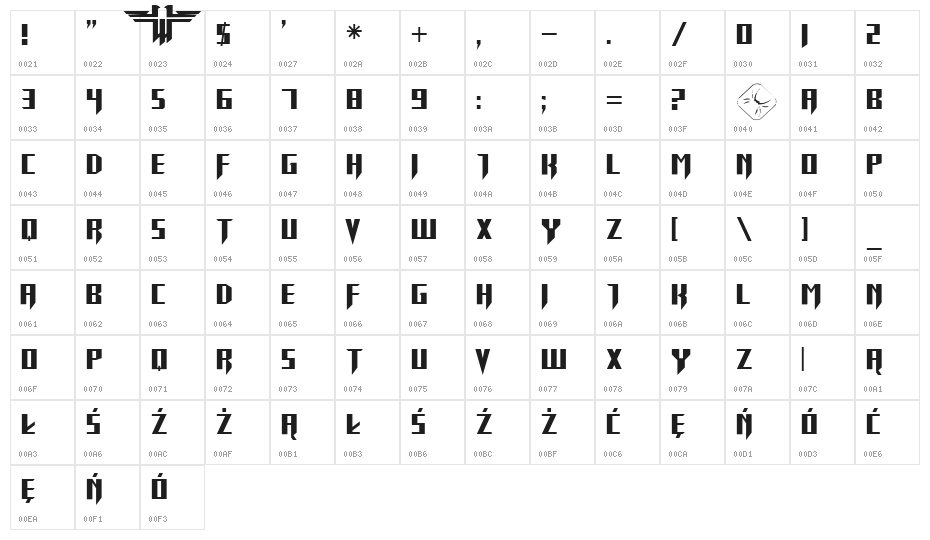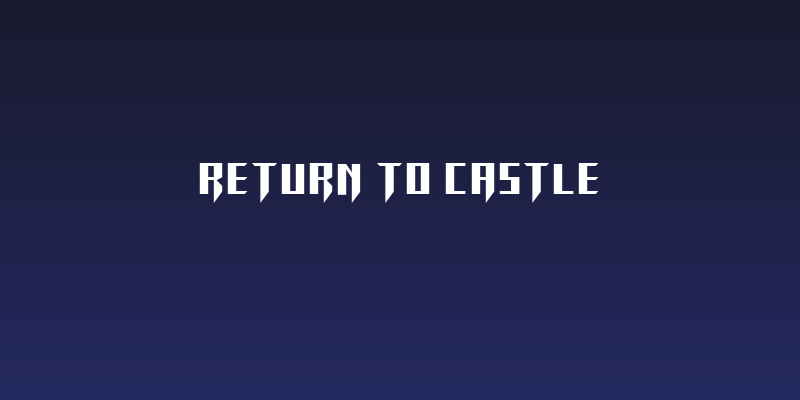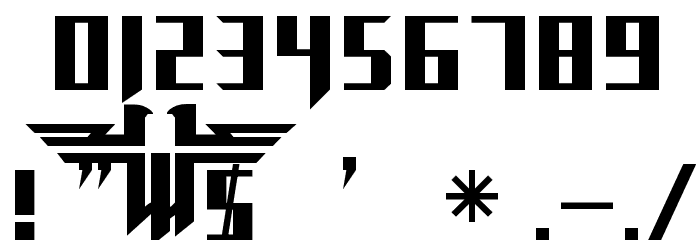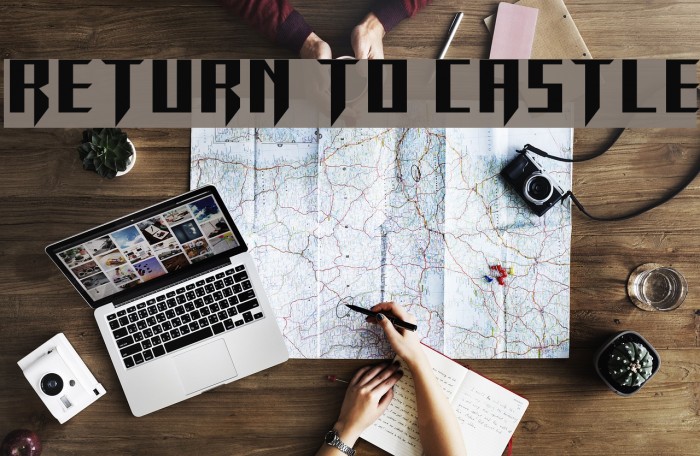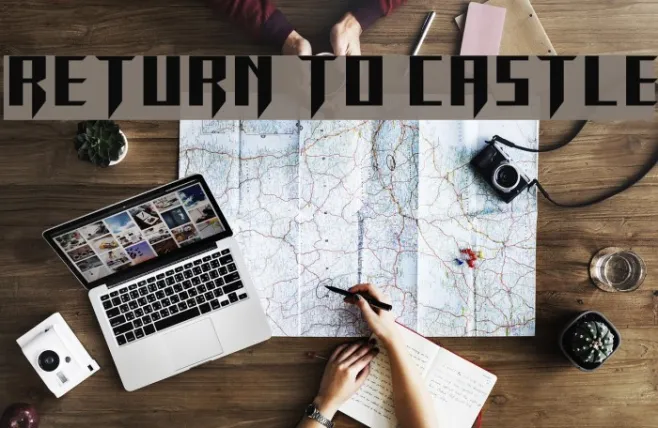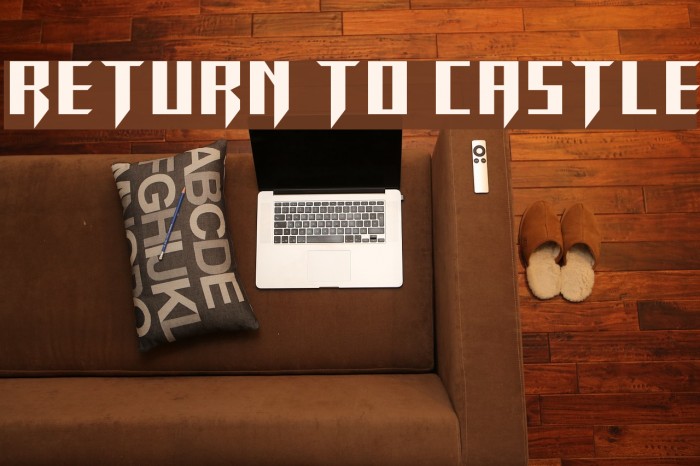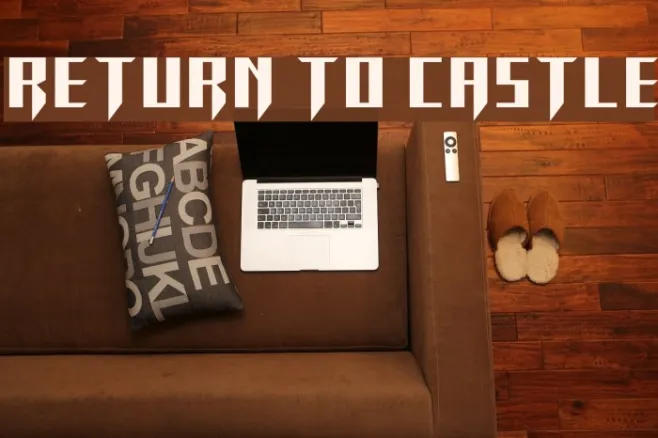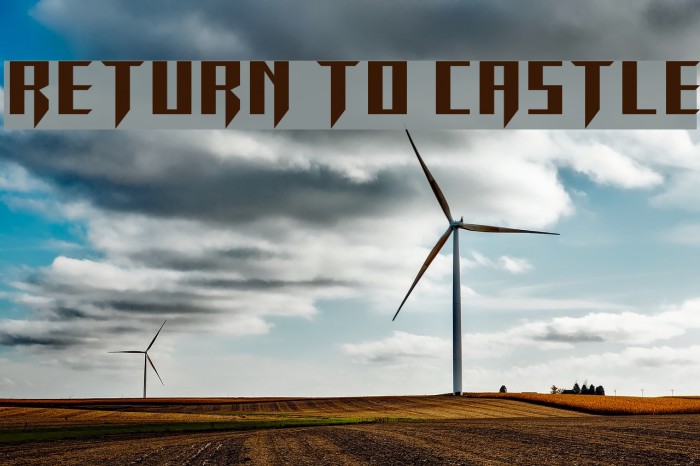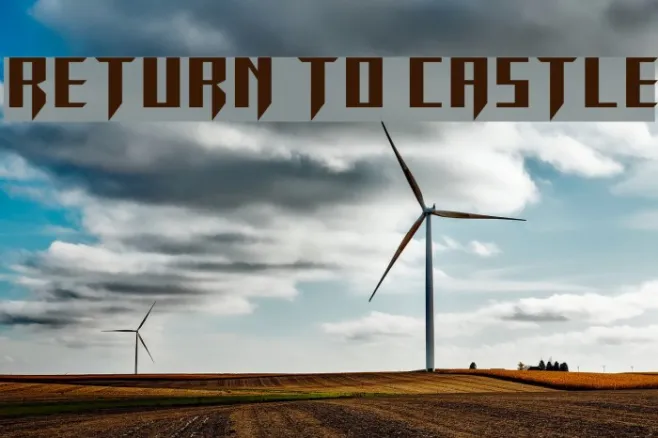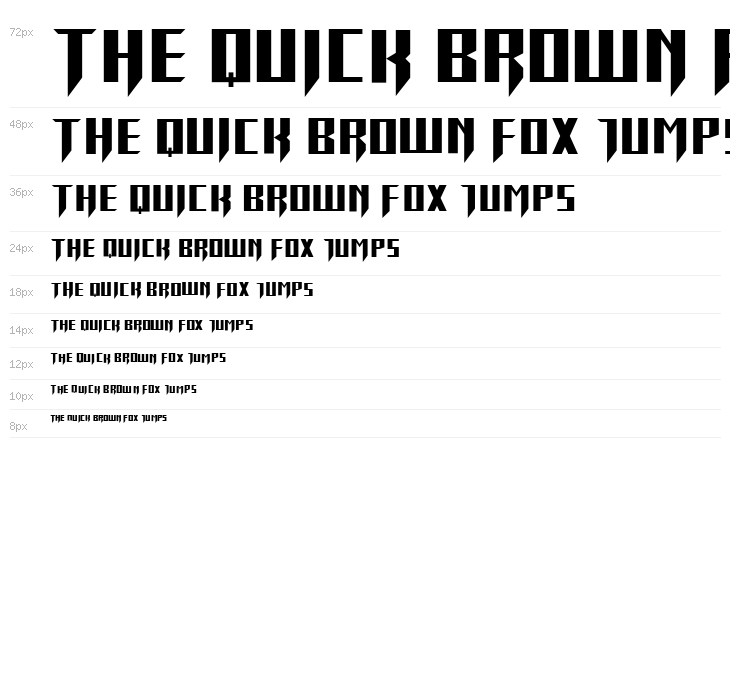
RETURN TO CASTLE Font
RETURN TO CASTLE Description
This font features a bold, angular design with sharp edges and a geometric structure. The uppercase letters are uniform in height, creating a cohesive and striking appearance. The characters have a distinct, military-inspired style, reminiscent of stencil or block lettering often used in industrial or tactical settings. The numbers and special characters maintain the same bold and angular aesthetic, ensuring consistency across all glyphs. This font's unique design makes it stand out, with a strong presence that commands attention.
| Proposed Projects | Ideal for use in video game titles, military-themed posters, industrial design projects, or any creative work requiring a strong, commanding typeface. |